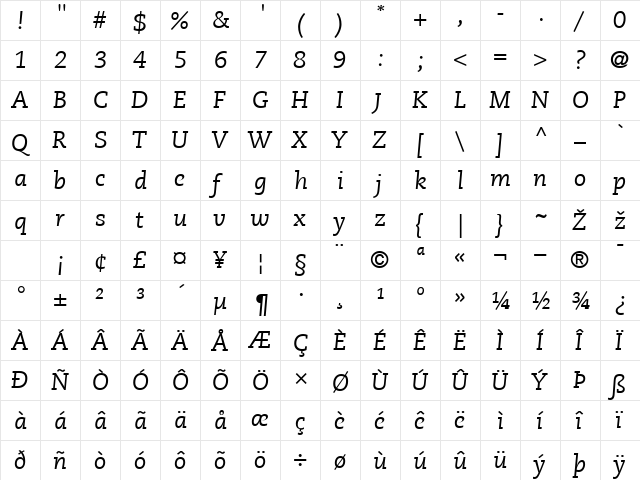
Caecilia LT Italic Regular
Design Context for Caecilia LT Italic Typeface
Caecilia LT Italic is a composed and adaptable typeface that performs quietly and consistently across a wide range of design contexts. The slanted form adds forward momentum and visual energy. The delicate stroke weight brings airiness and refinement to layouts.
Pro Tip: Try Caecilia LT Italic for annotation and caption copy alongside an upright companion — the contrast in angle creates a dynamic but ordered typographic system.